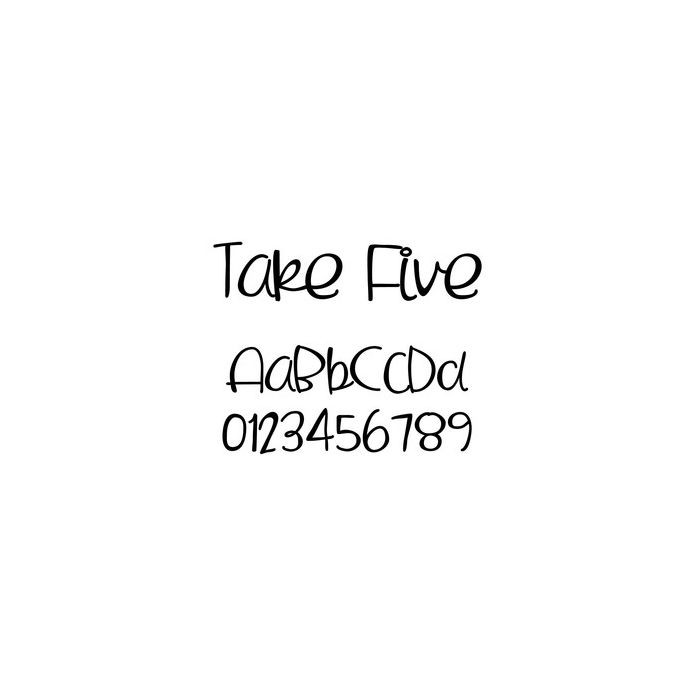
This adorable script is perfect for all your journaling and crafting projects. For more fonts like this please visit: http://www.letteringdelights.com/